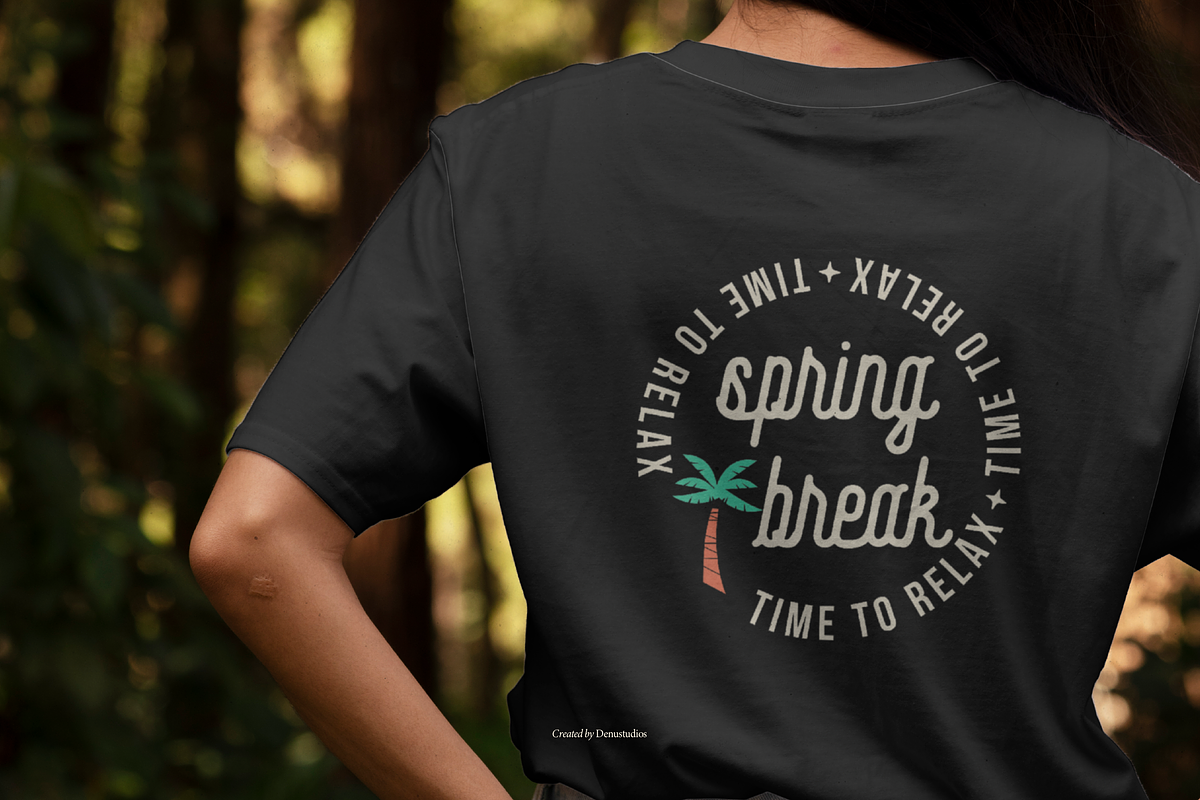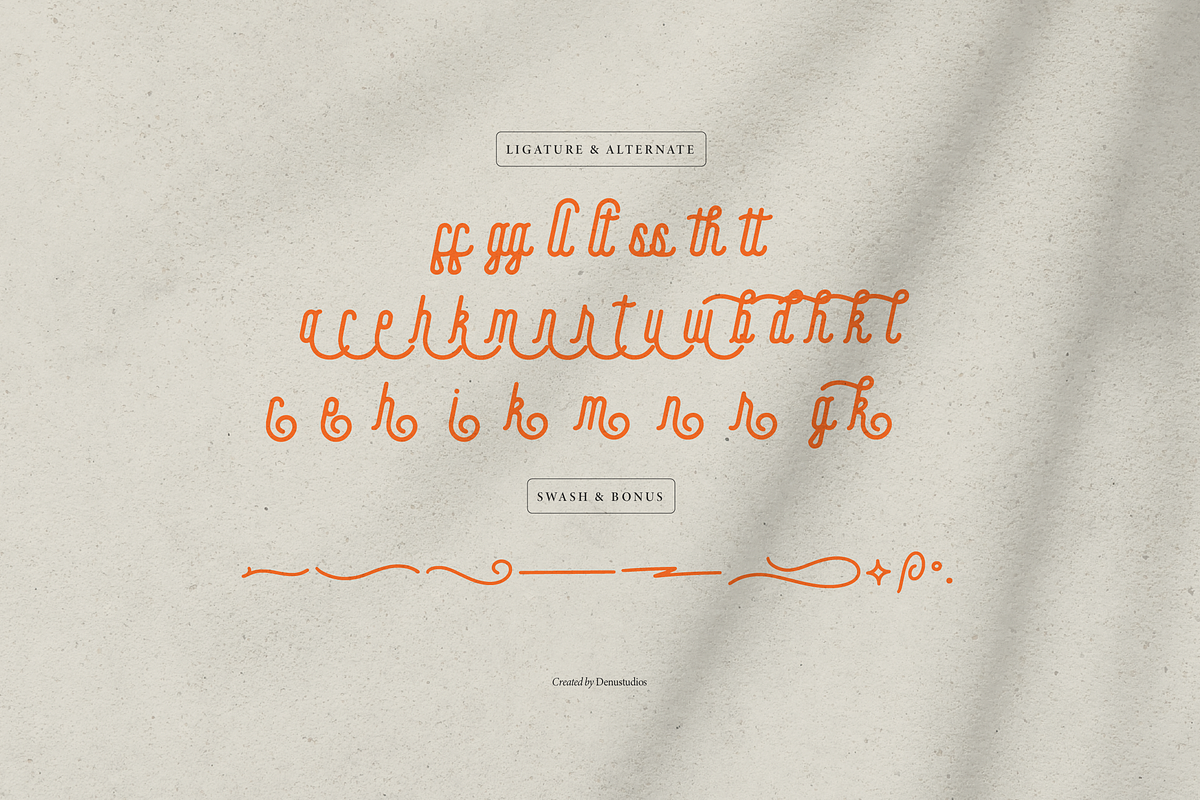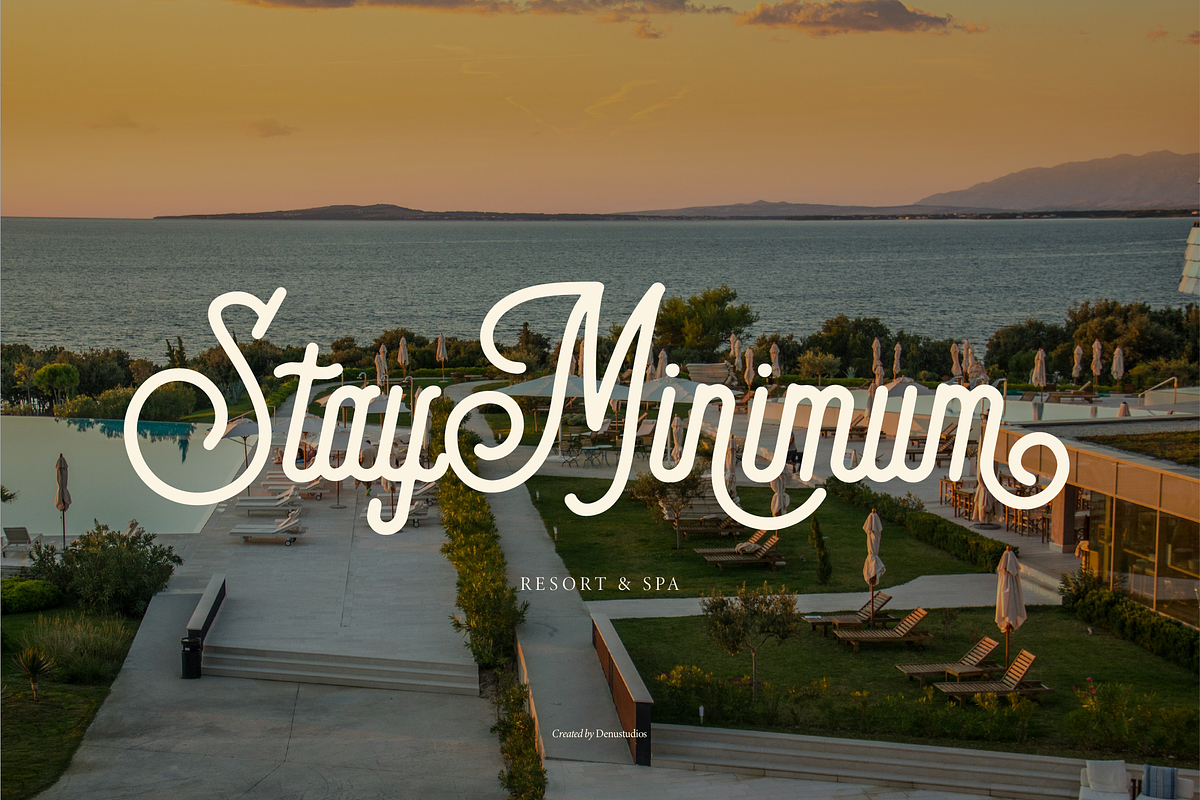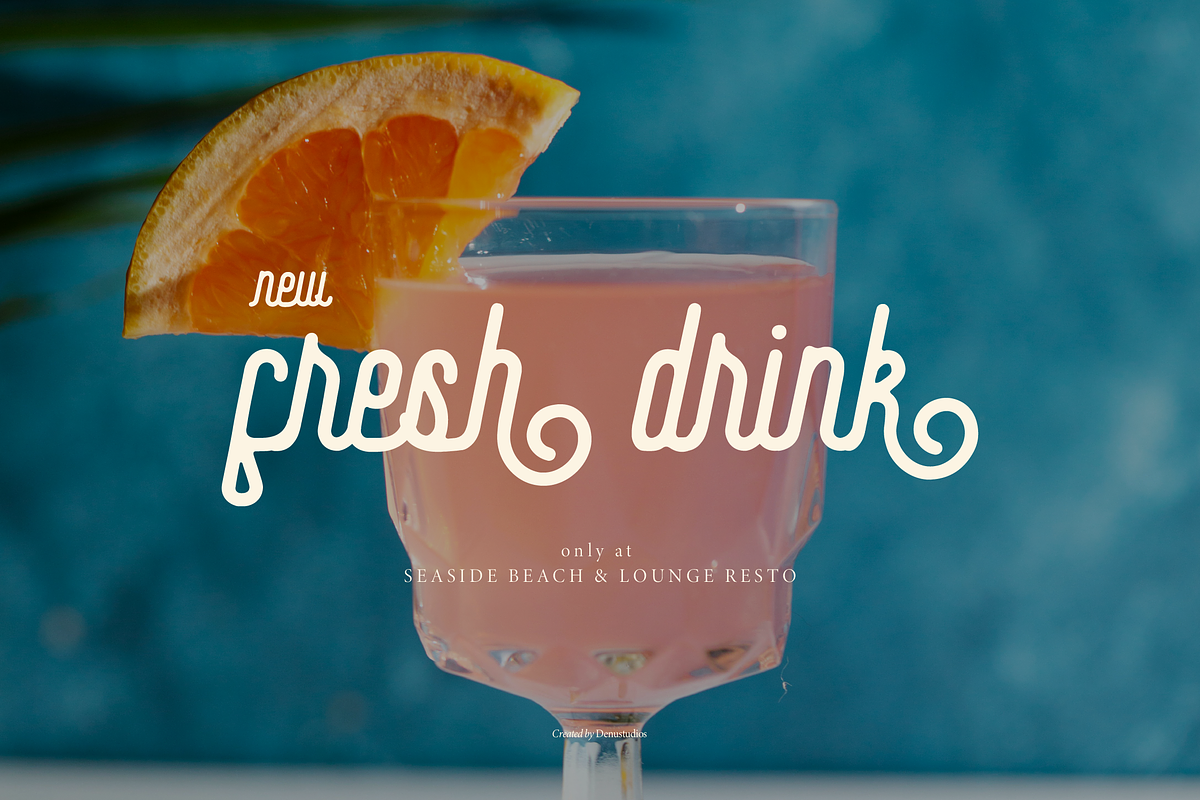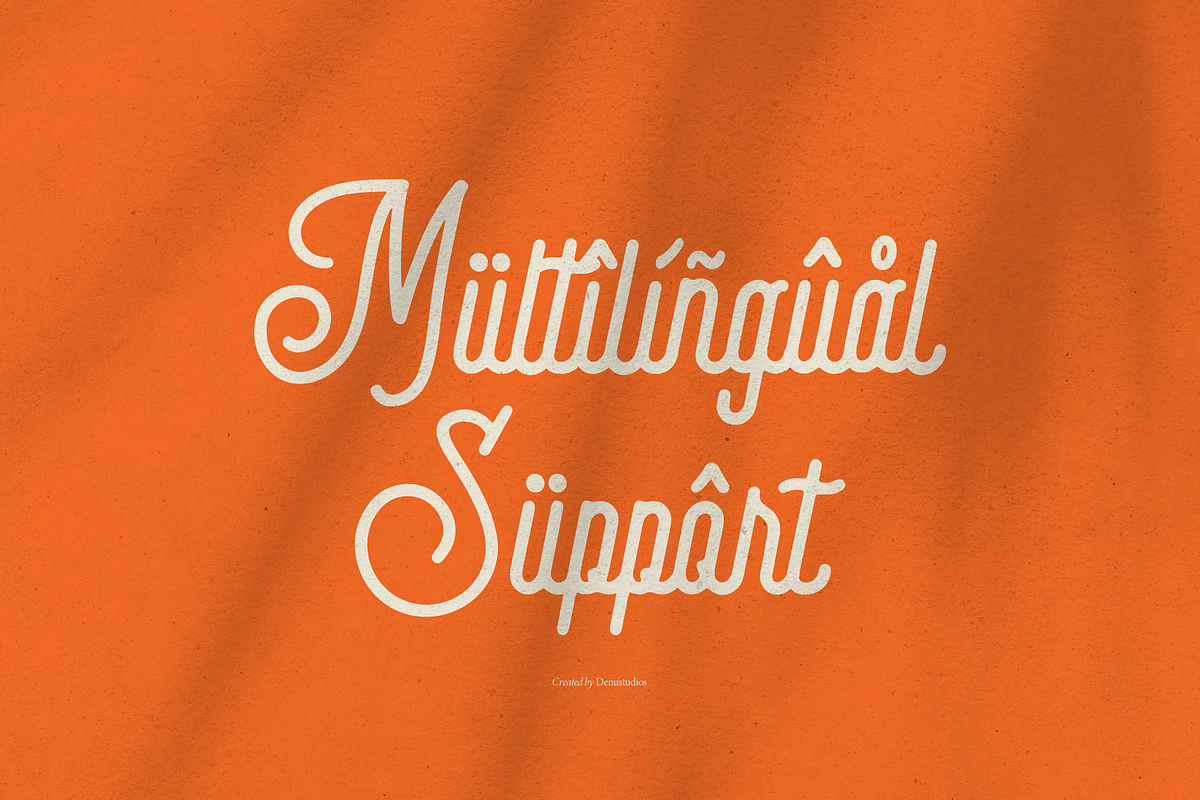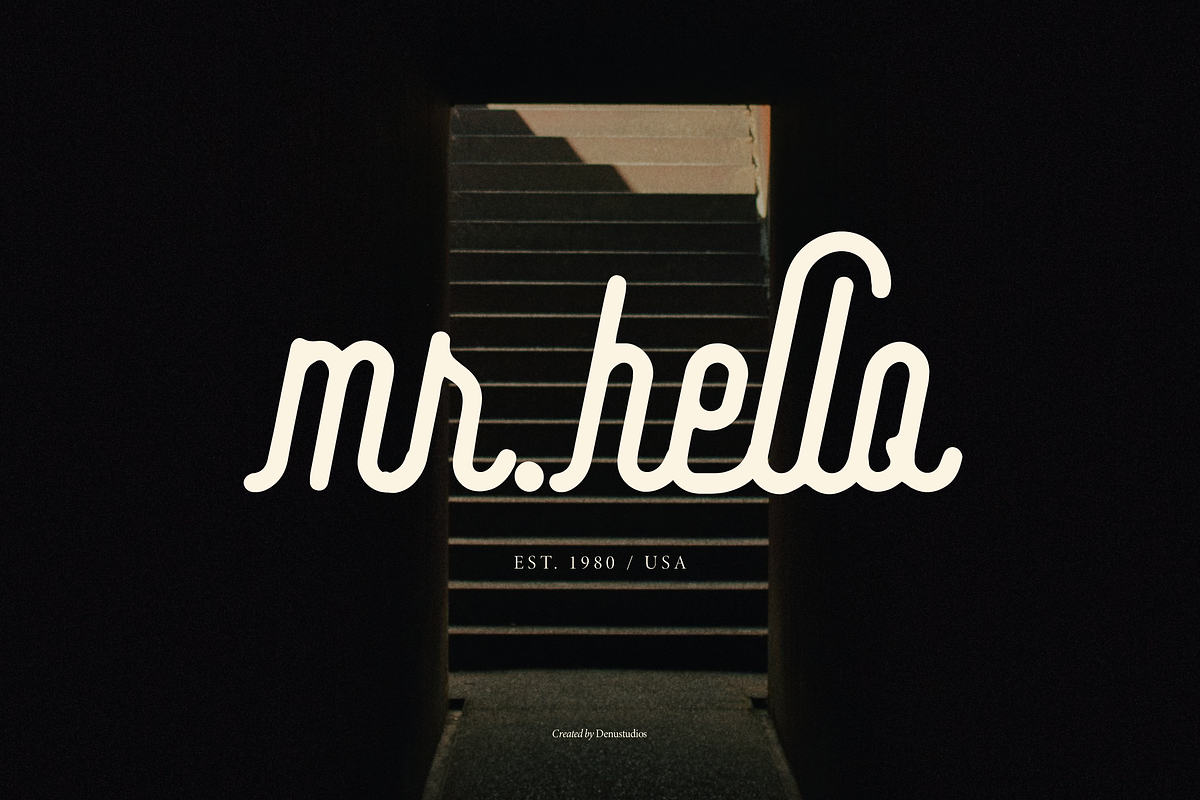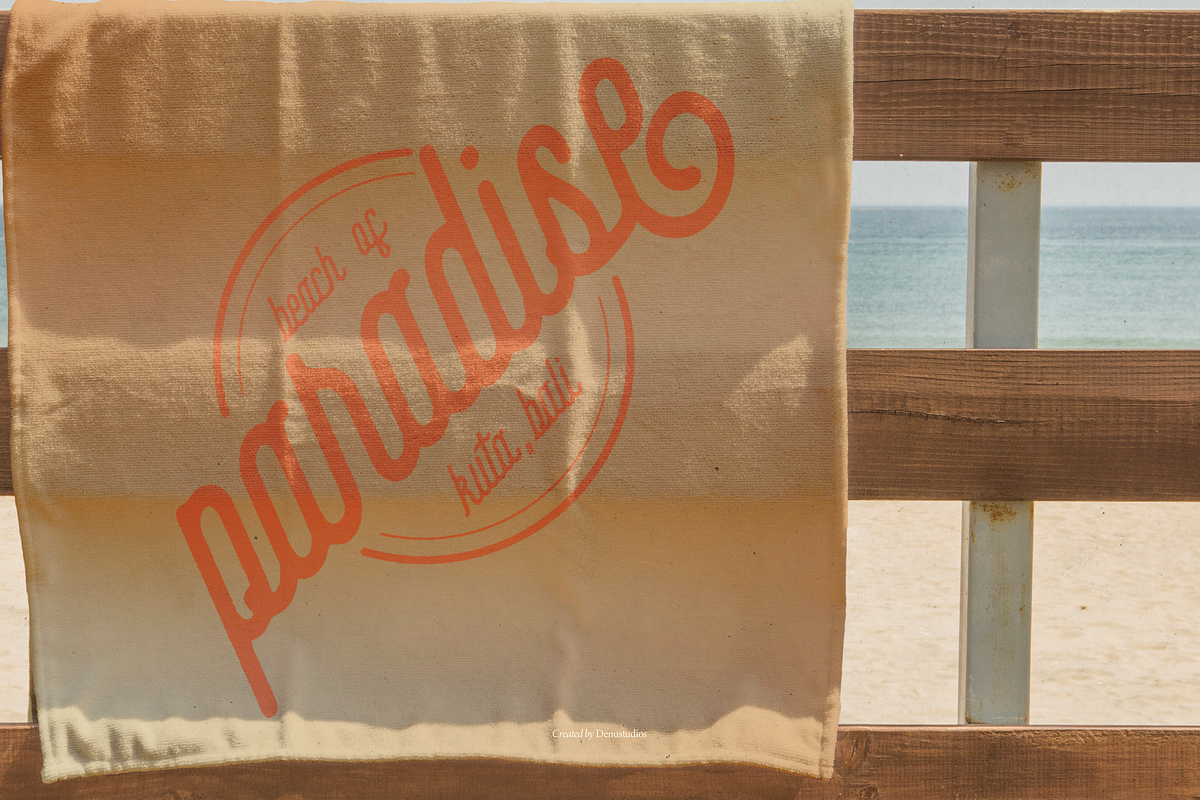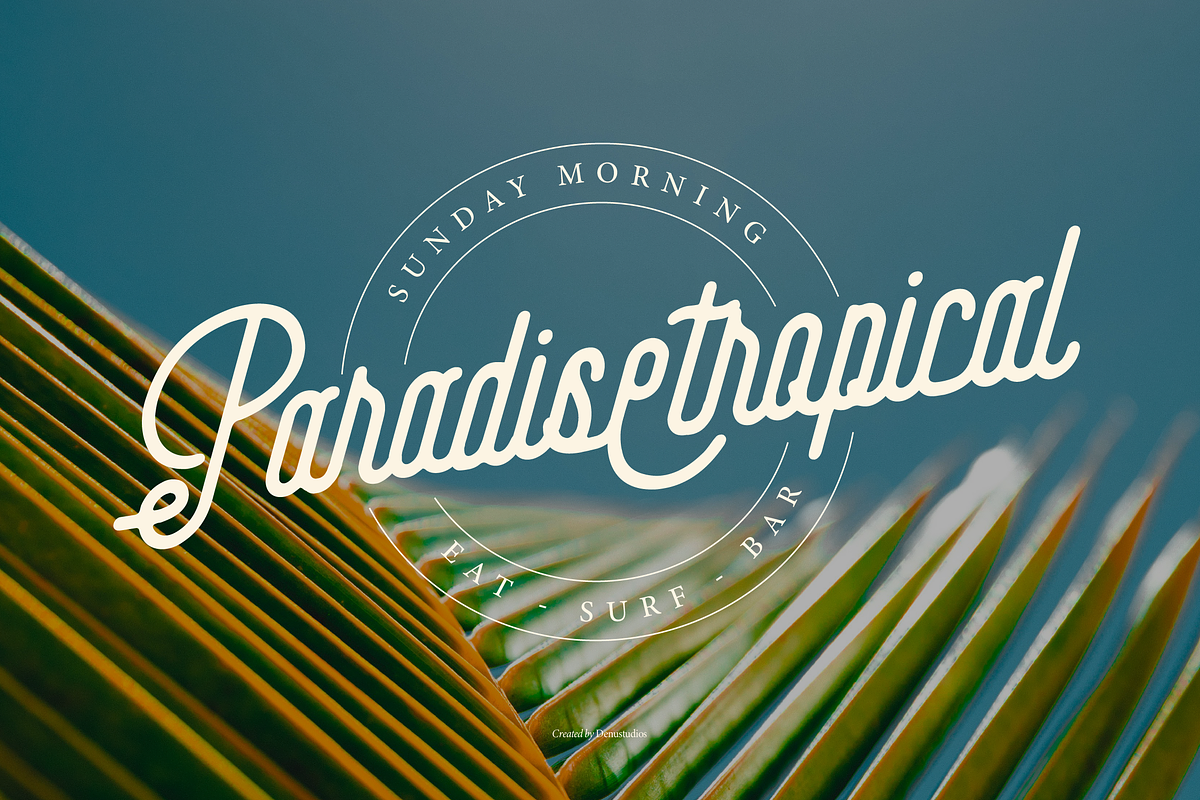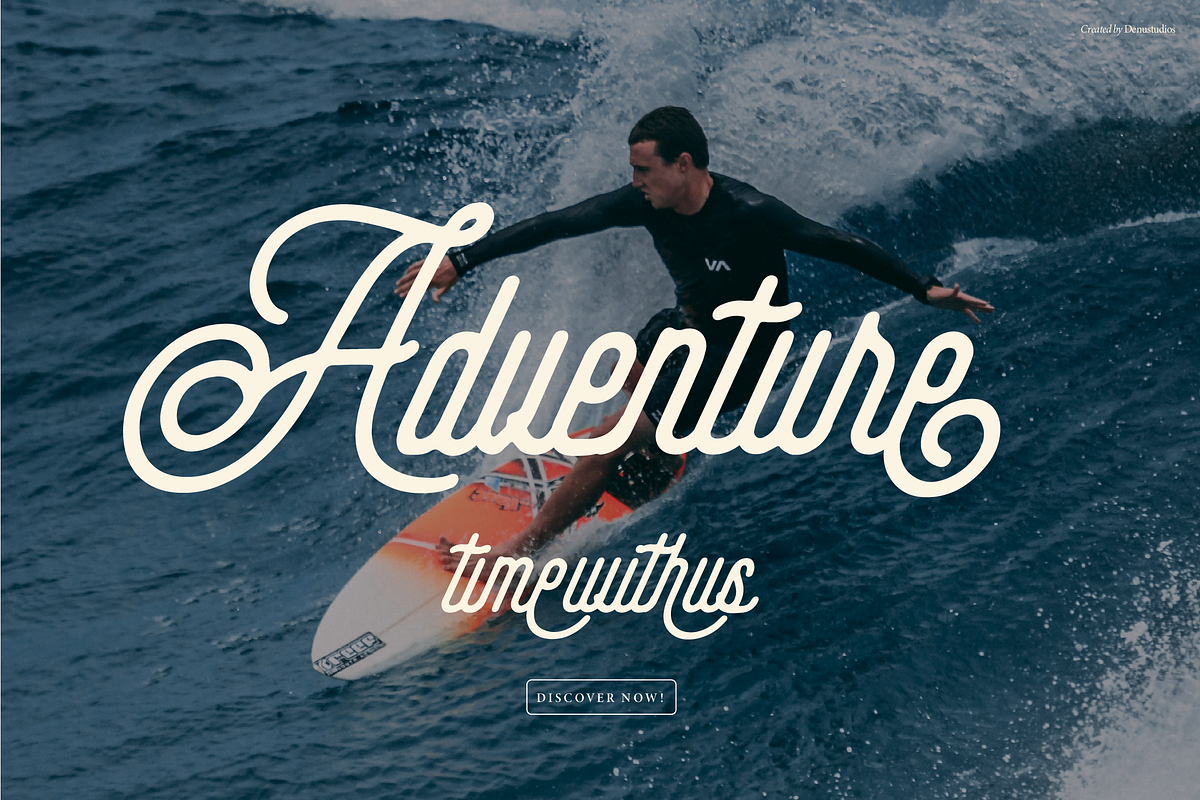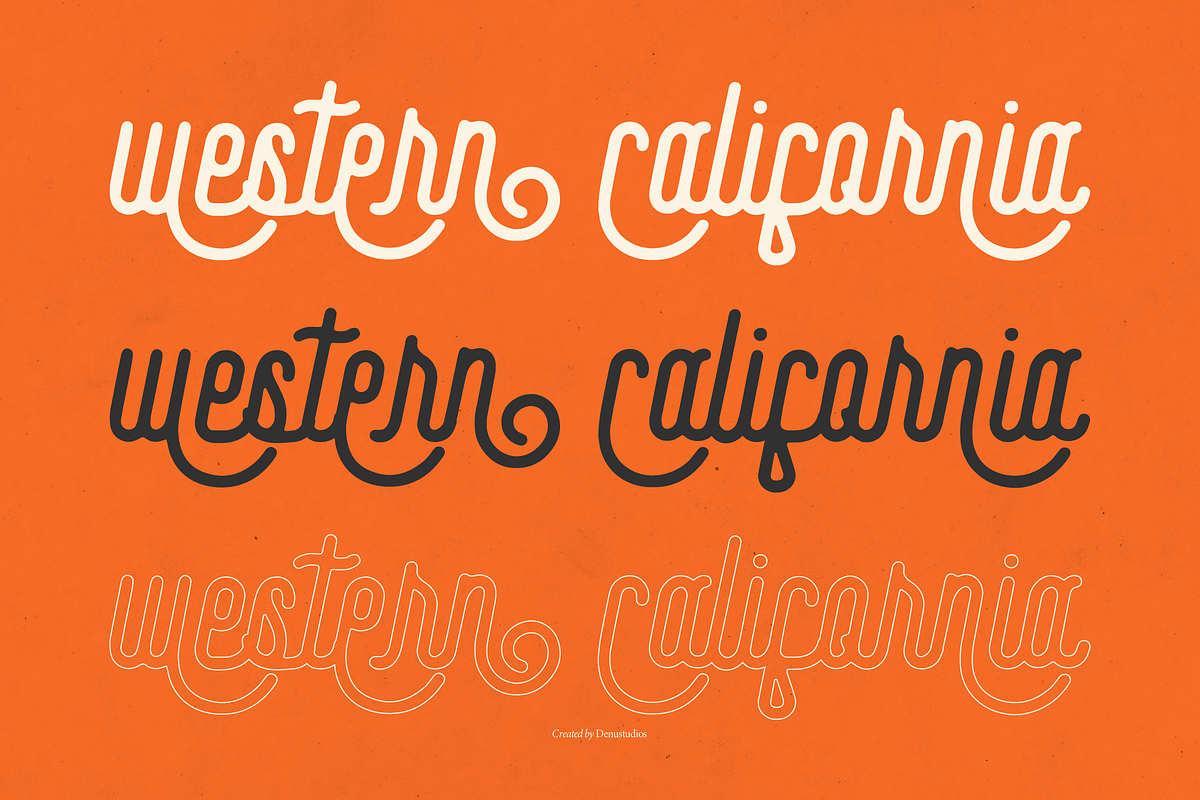
Kimdelim | Monoline Script
Kimdelim | Monoline Script, from Denustudios, suitable for any projects such as: logos, branding projects, homeware designs, product packaging, mugs, quotes, posters, shopping bags, t-shirts, book covers, name card, invitation cards, greeting cards, label, photography, watermark, special events, and all your other lovely projects that need a Monoline Script taste.